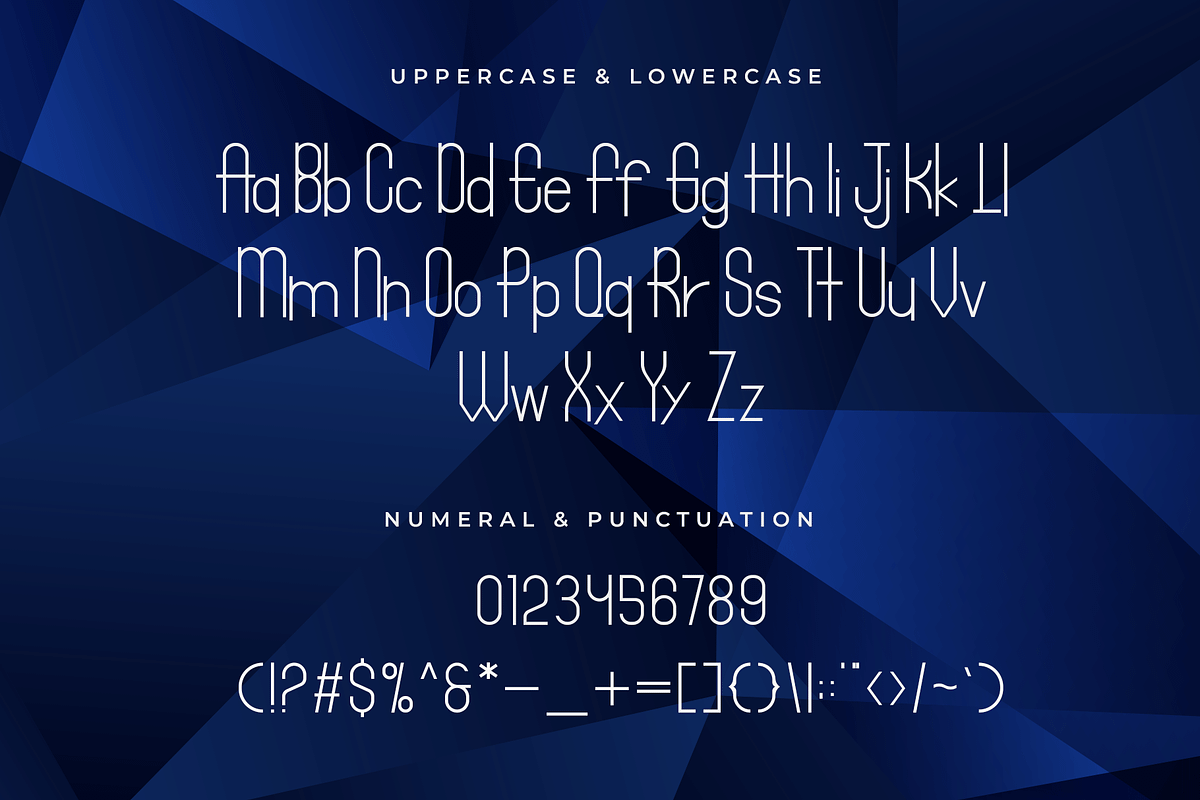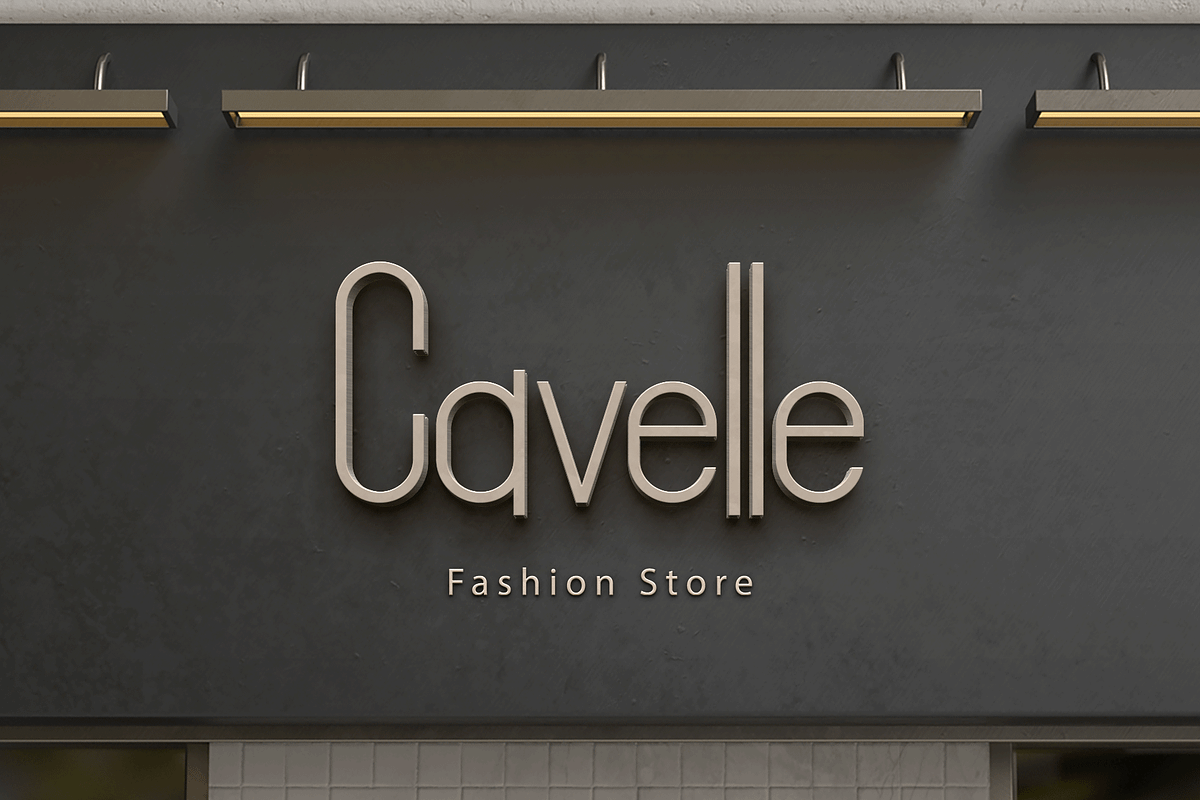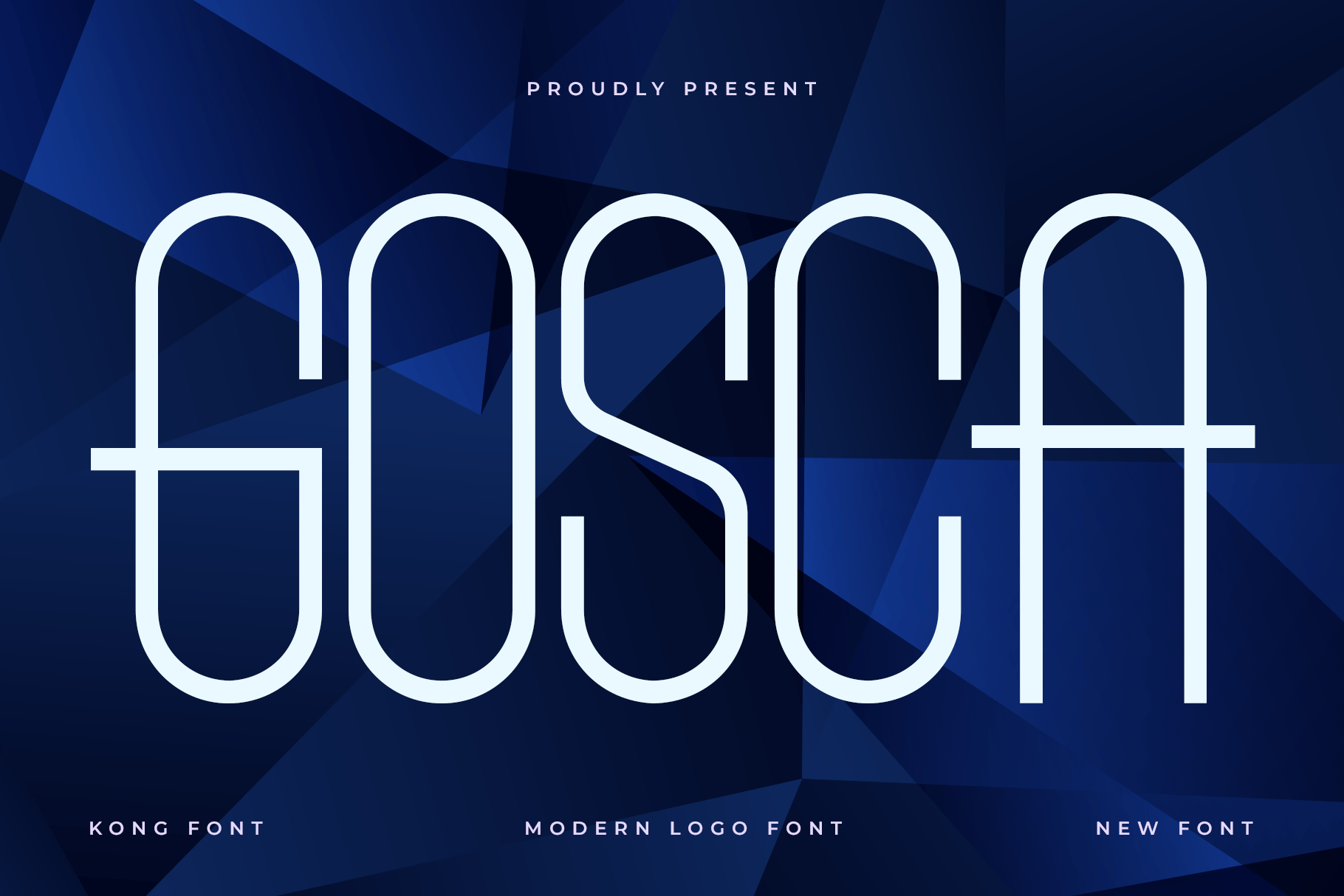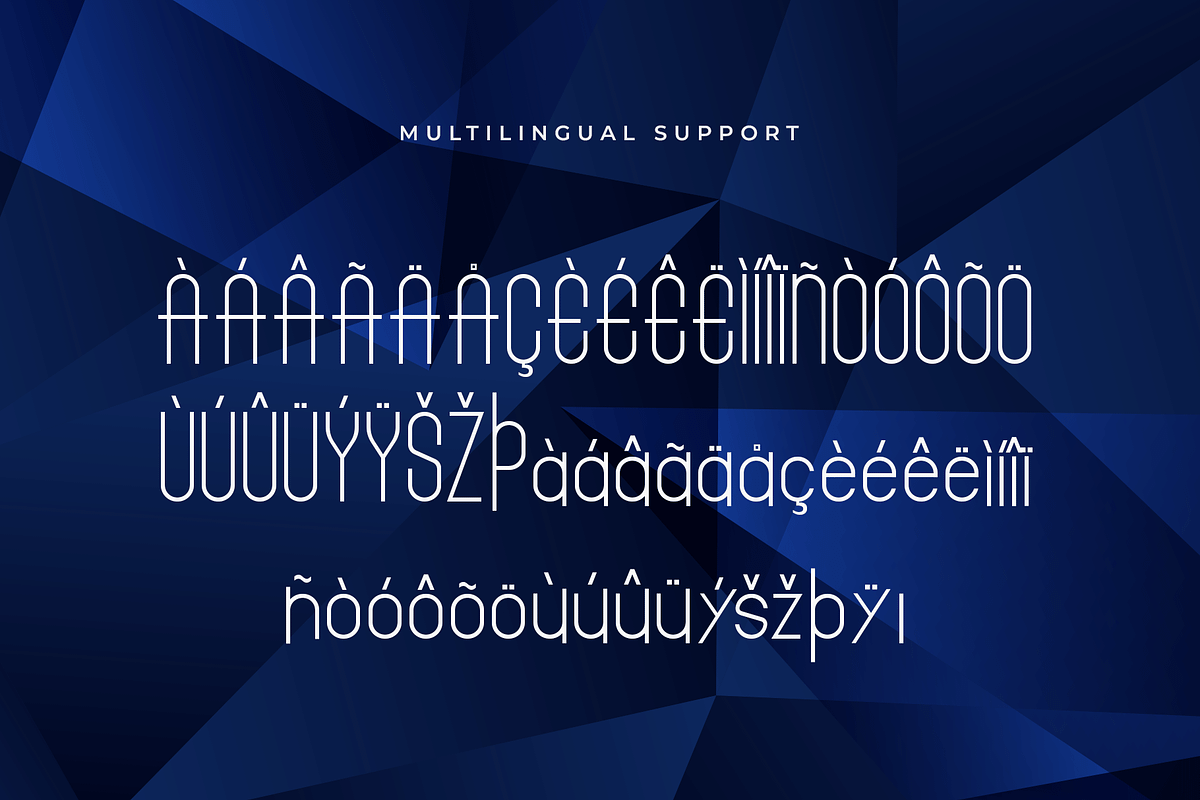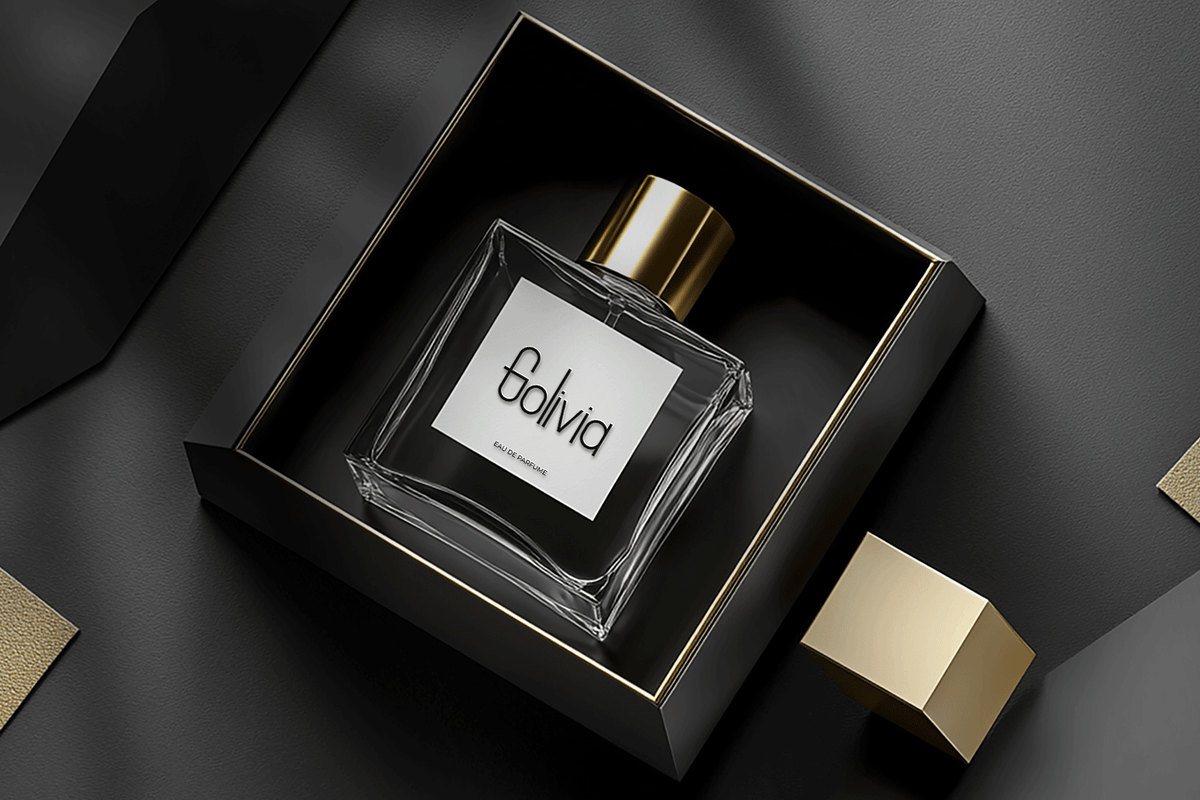
Gosca – A Modern Logo Font
Introducing Gosca, a modern logo font designed to elevate your brand with minimal elegance and contemporary charm. Featuring clean lines, sharp geometry, and a confident aesthetic, Gosca is the ideal choice for logos, branding kits, packaging, and modern headlines.
Its versatile letterforms strike the perfect balance between simplicity and character, making it suitable for both personal and professional design projects. Whether you're building a fashion label, tech startup, or creative studio identity, Gosca adds a refined, modern touch that commands attention without overpowering your visuals.
Let Gosca shape your brand identity with style and sophistication.